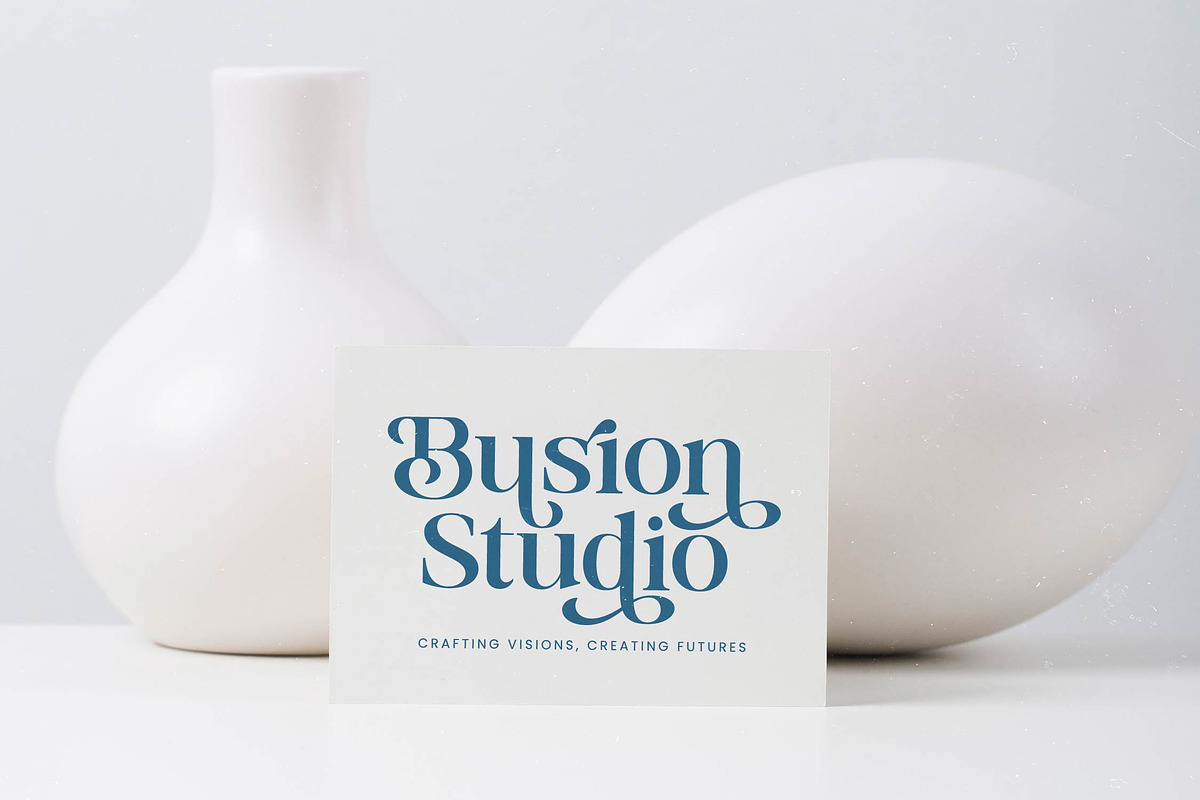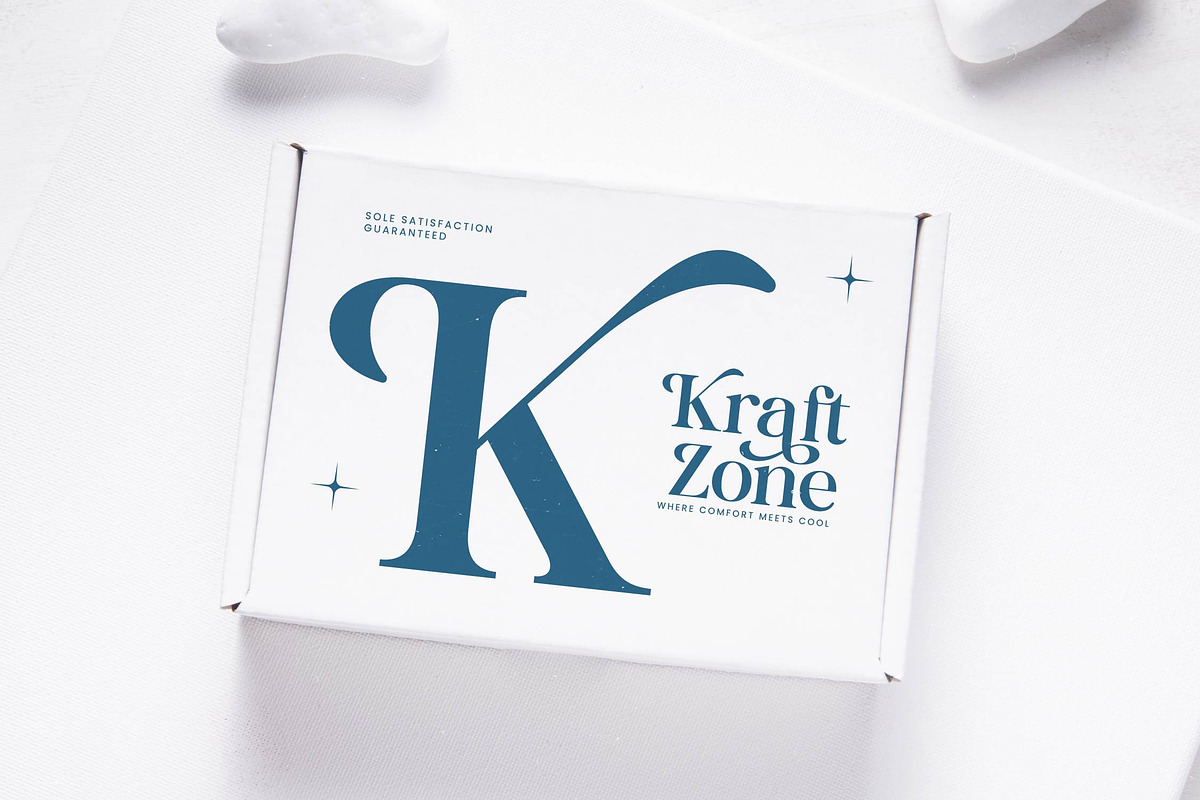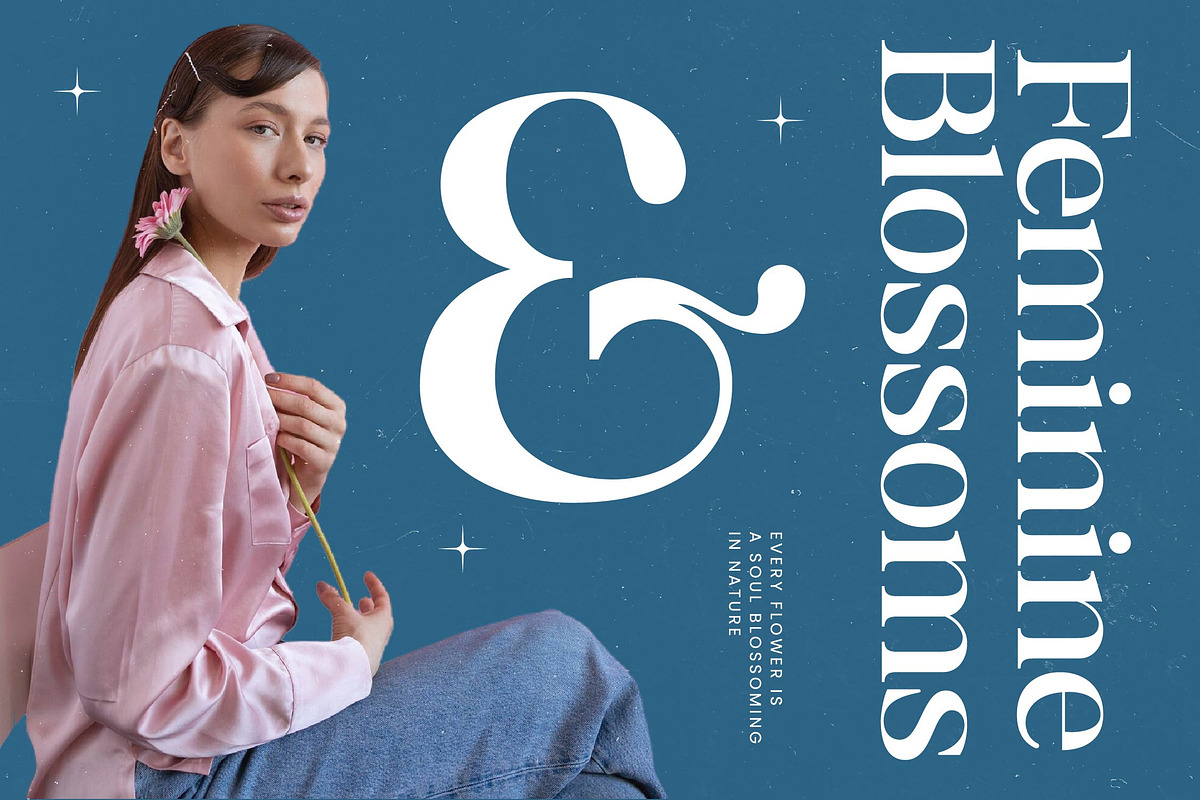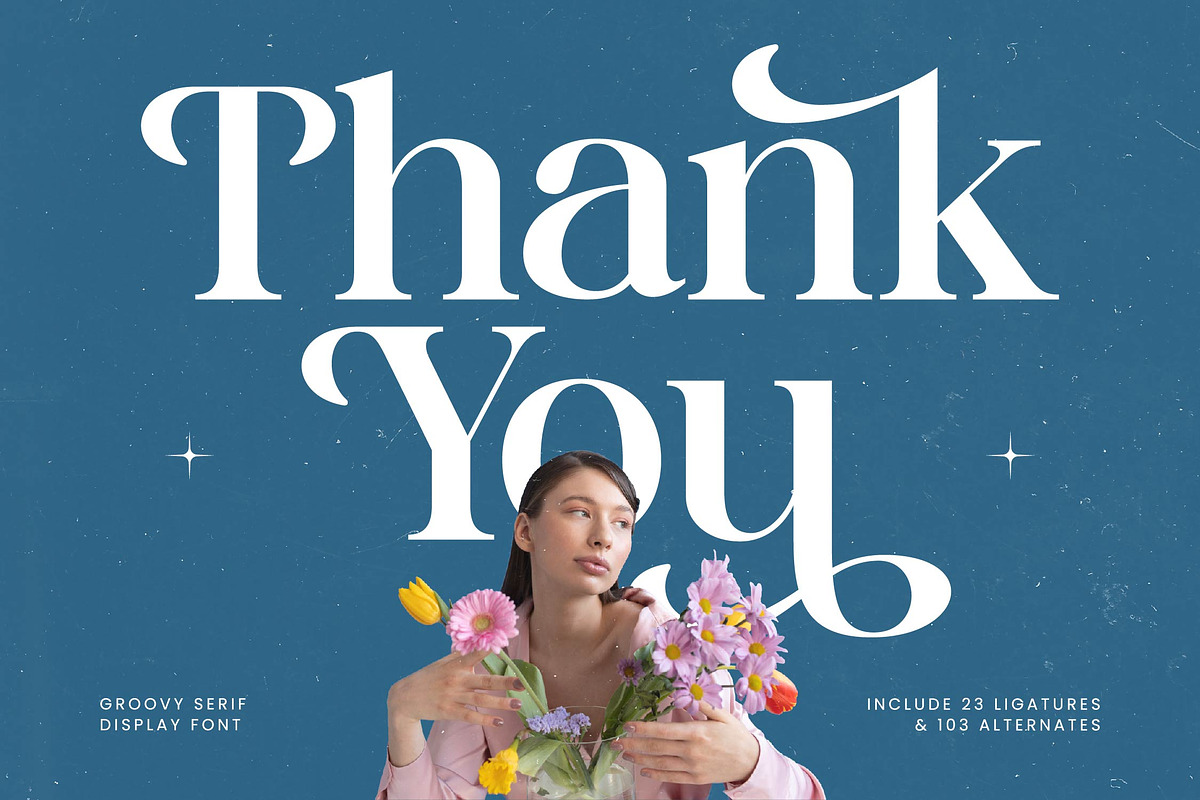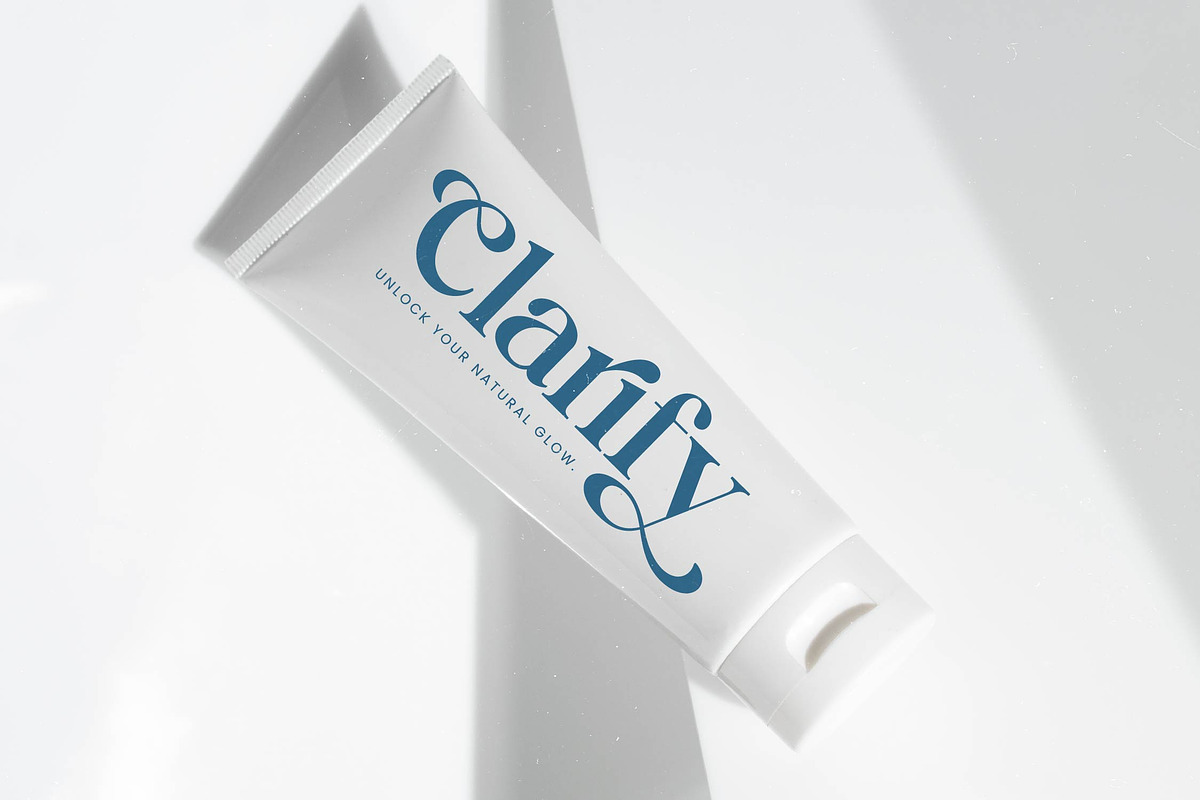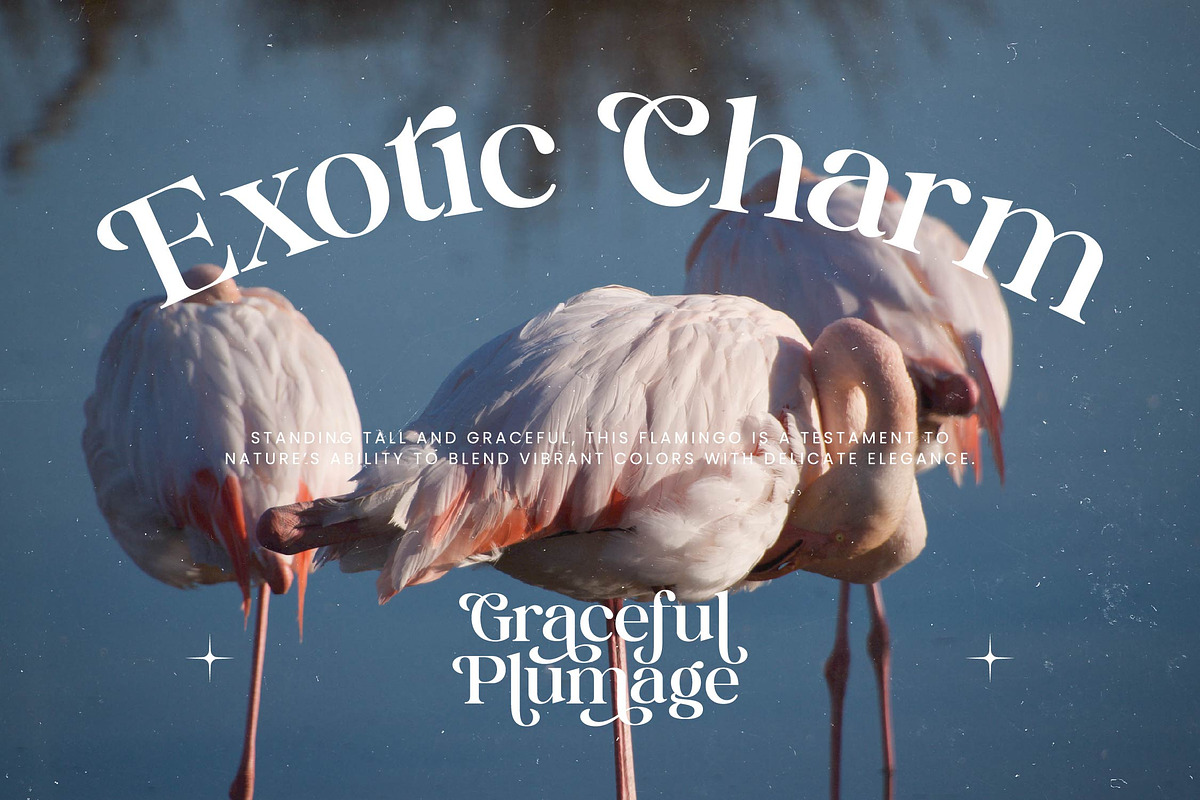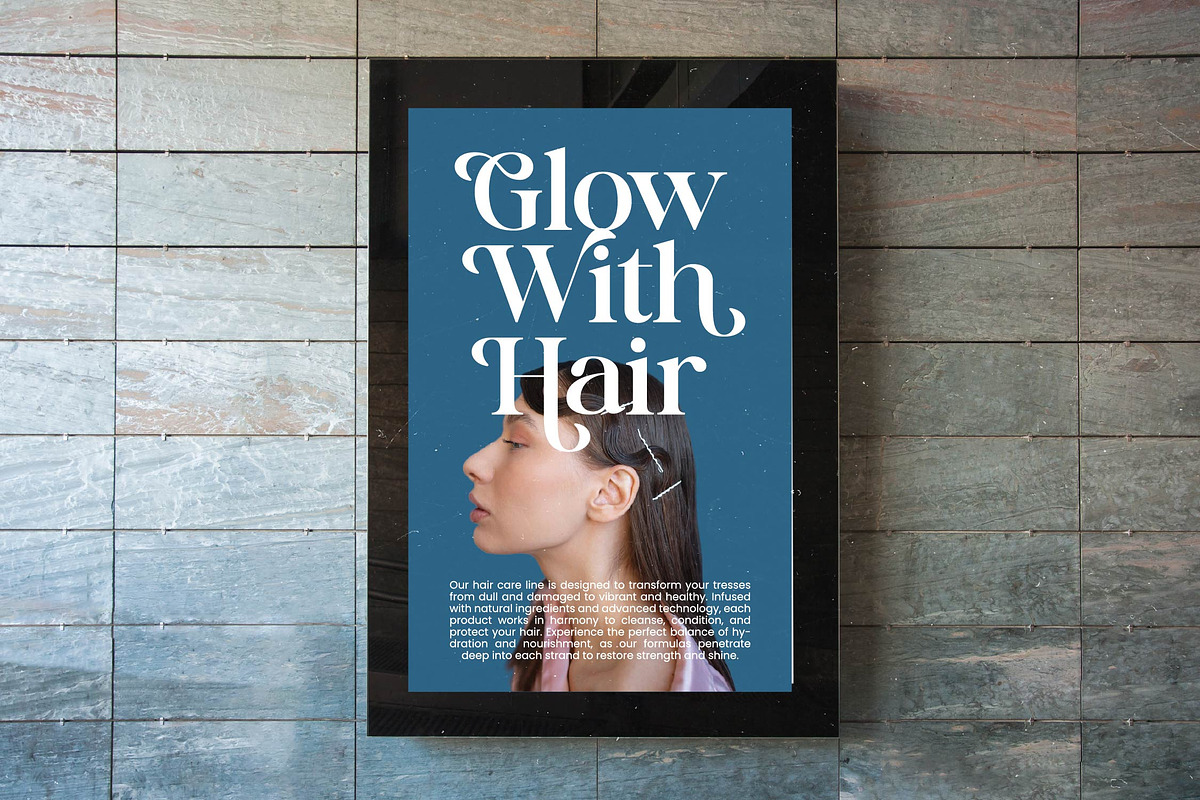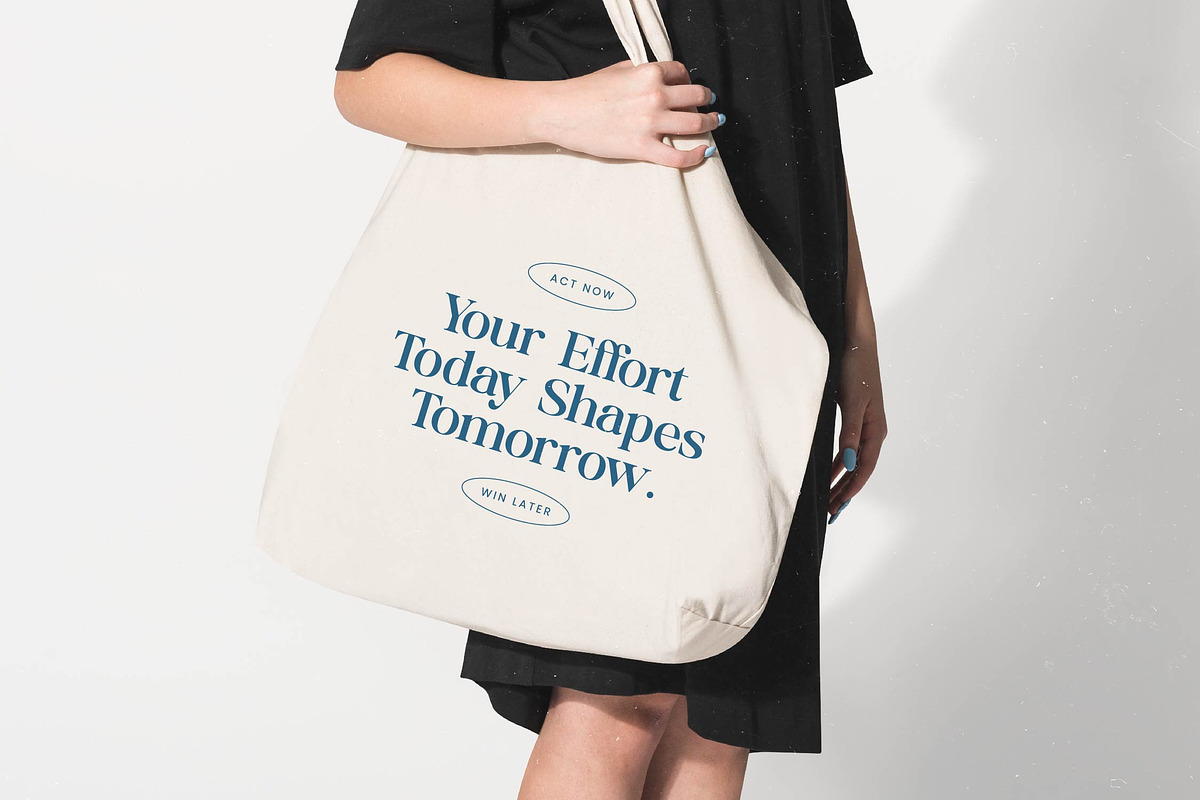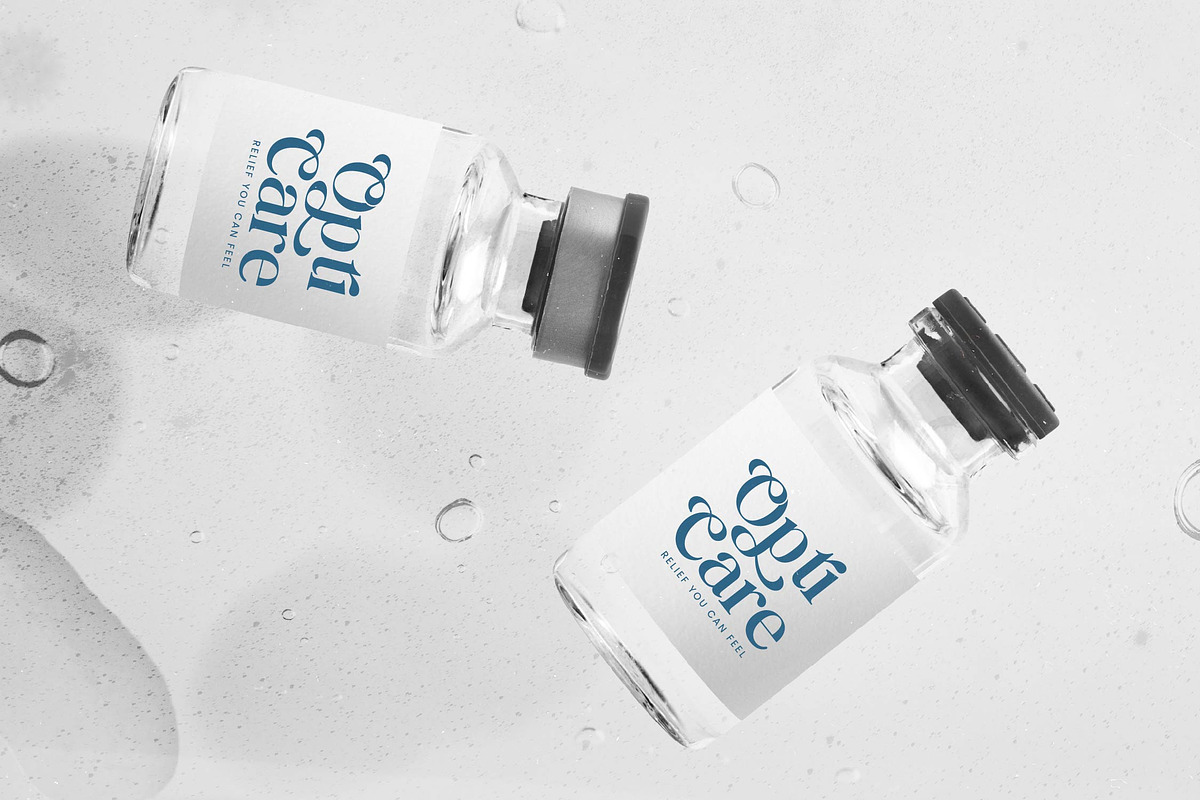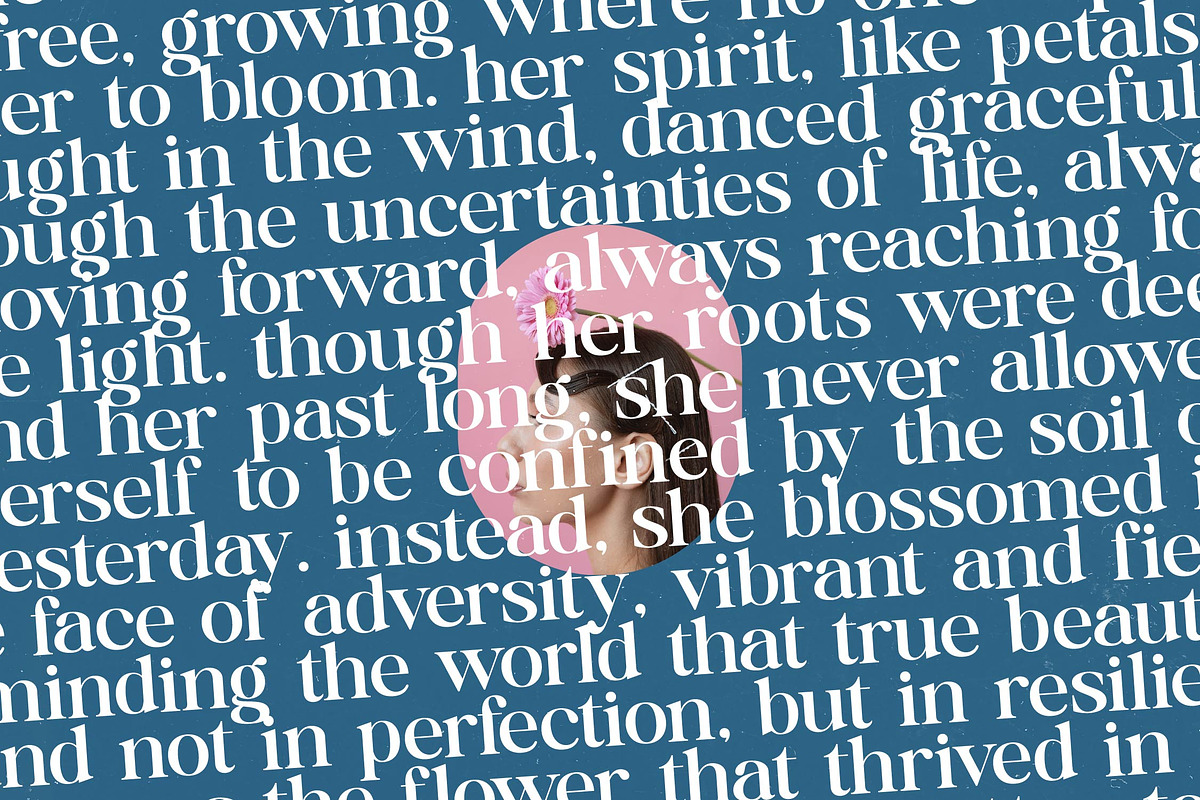
Halucka Bailey Groovy Serif Font
Halucka Bailey is a masterpiece of fluid motion and timeless elegance, designed to captivate the eye and elevate any creative composition. This font strikes a perfect balance between nostalgic charm and contemporary sophistication, making it an essential tool for designers seeking a unique voice.
Inspired by the organic curves of the psychedelic era fused with the refined structure of classic editorial typography, this typeface evokes a sense of whimsical luxury. The atmosphere is one of botanical freshness and artistic freedom, reminiscent of high-end fashion boutiques and secret garden gatherings.
This modern serif display exudes a confident presence through its luxury typography and high-contrast serif details that demand attention. Every stroke is crafted for branding impact, ensuring that your headlines stand out as a premier editorial font choice for sophisticated audiences.
Perfectly aligned with the current modern serif trend, this typeface brings a fresh perspective to editorial display fonts by emphasizing character-driven typography. It taps into the growing demand for expressive, soulful designs that break away from static, traditional structures.
Its versatility makes it the ultimate solution for logo design, high-end branding, and immersive editorial layouts that require a touch of magic. Whether you are working on artisanal packaging, a bespoke wedding invitation suite, or a fashion lookbook, this font adapts beautifully to high-visibility projects.
Unlock unlimited creative possibilities with a comprehensive set of 23 ligatures and 103 unique alternates that allow for custom-tailored lettering. The package includes elegant swashes and full multilingual support with over 200 international characters to ensure global accessibility.